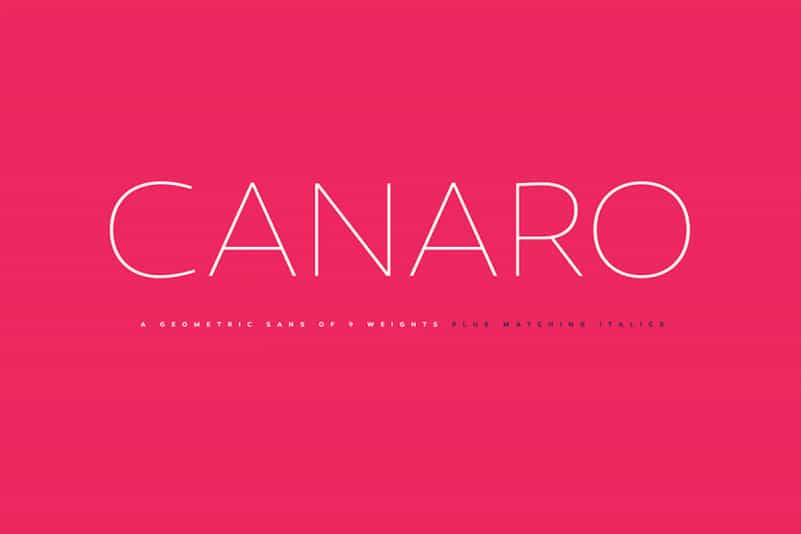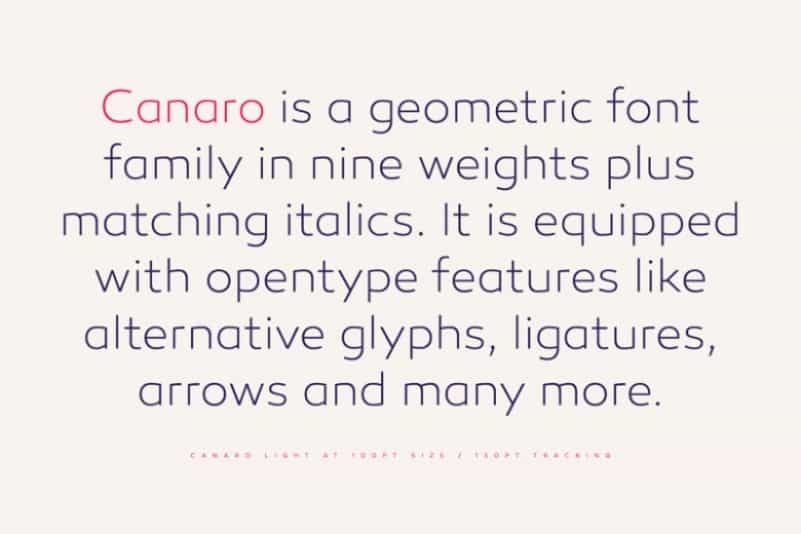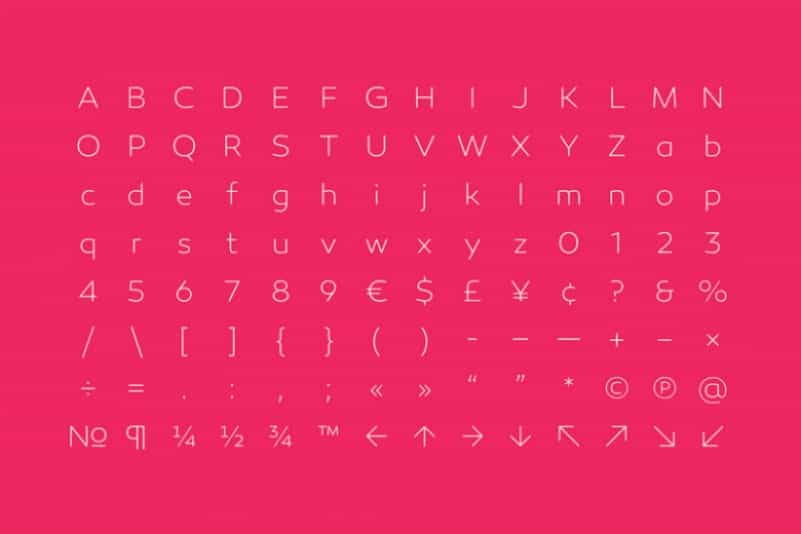
The designer, Rene Bieder, created Canaro Font as a geometric and modern sans font family for clear and easy reading purposes as it is extremely easy to read. I think that the sans-serif font design is very important in achieving a modern look – and that is exactly what Canaro is! Rene intended to emulate geometric type designs from early 20th century but at the same time, make his initial designs as relevant to the modern era as possible. Canaro Font was developed as part of this experimentation by borrowing elements from these designs, at least in its early developmental stage.